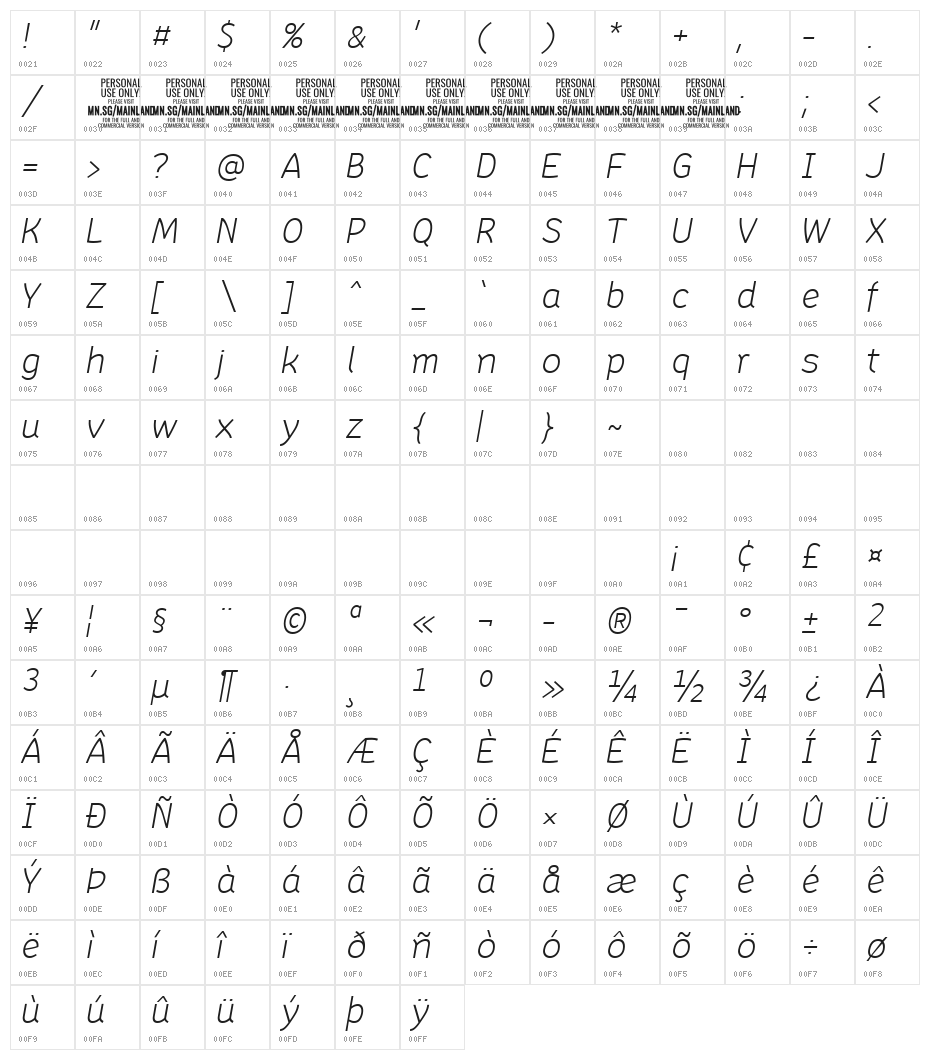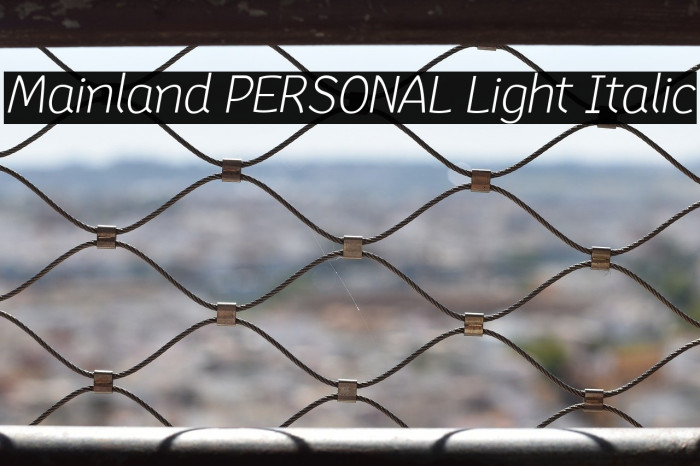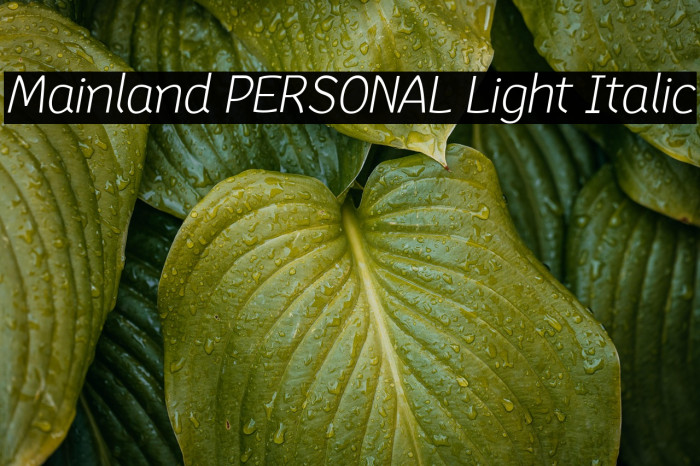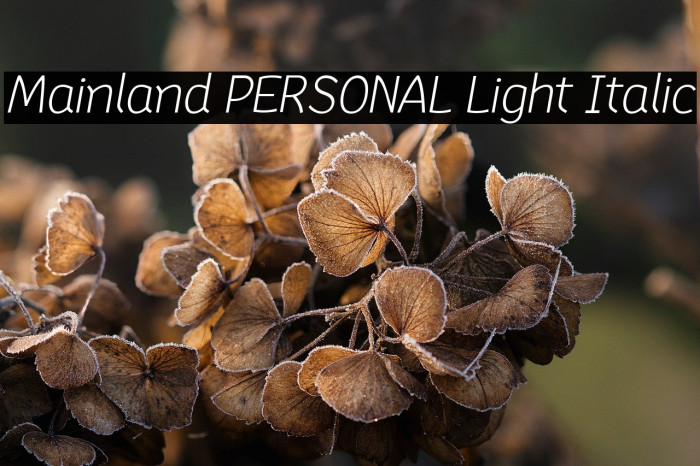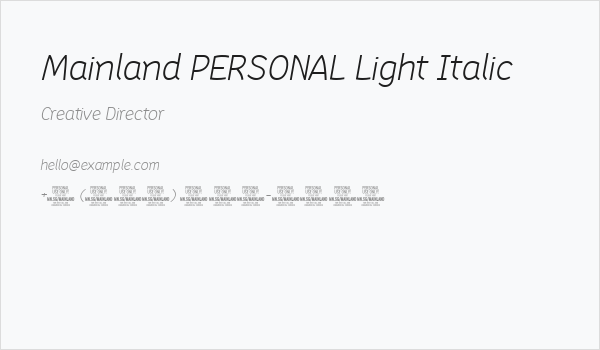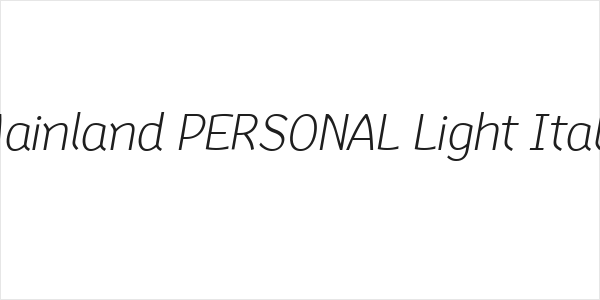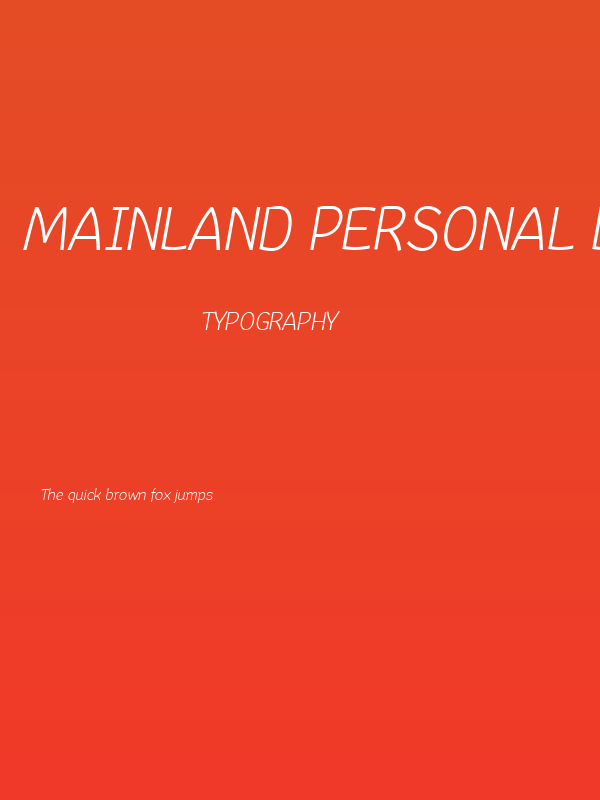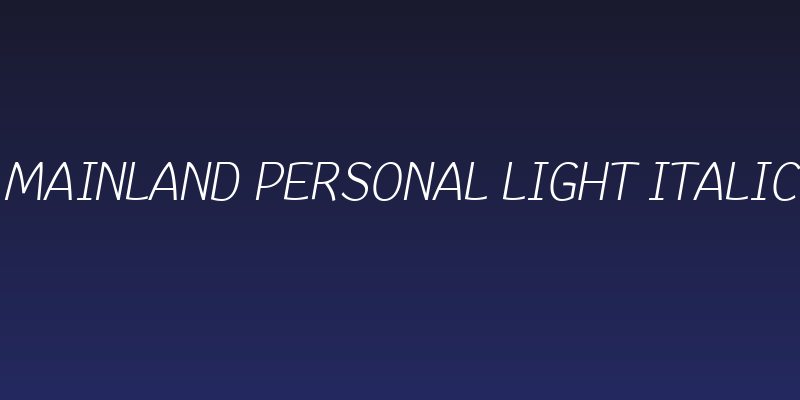
Mainland PERSONAL Light Italic Font
Mainland PERSONAL Light Italic Description
This font features a sleek and modern design with a light weight and italic style. The characters are elegantly slanted, giving a sense of motion and fluidity. The strokes are consistent and smooth, with a medium contrast that enhances readability while maintaining a stylish appearance. The uppercase and lowercase letters are well-proportioned, and the numerals are clear and distinct. Special characters are included, providing versatility for various design needs. Overall, this font exudes a contemporary and sophisticated vibe, making it suitable for a wide range of applications.